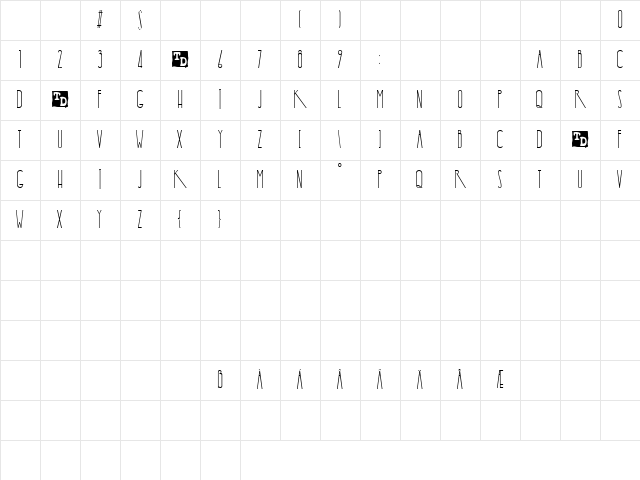
Yaroslav Trial Version
Design Context for Yaroslav
Yaroslav is a composed and adaptable typeface that performs quietly and consistently across a wide range of design contexts.